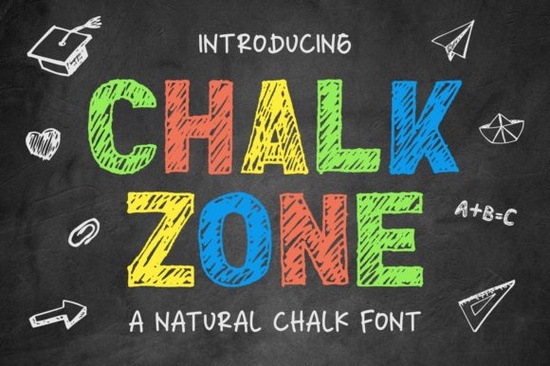
If you’ve been searching for a display font that feels playful but still packs a punch, Chalk Zone Font might be exactly what your next project needs. It’s bold without being overwhelming, colorful in spirit even in black and white, and carries a friendly tone that works just as well on kids’ party invites as it does on boutique shop signage. Whether you’re designing merch, social media graphics, or classroom materials, this font adds personality without demanding too much from your layout.
What makes Chalk Zone especially handy is how naturally it fits into different themes. Need something that feels hand-drawn but still clean? This one’s got you covered. Want to pair it with something more structured? Try using it alongside Monica for contrast the soft curves of Monica balance out Chalk Zone’s energetic bounce. Or if you’re going for something more rugged, Viking Empire brings in that strong, carved-in-stone look while letting Chalk Zone keep things approachable.
Who actually uses fonts like this?
It’s not just for chalkboards though yes, it looks great there too. Print-on-demand sellers love it for t-shirts and tote bags because the thick strokes hold up well at any size. Teachers and homeschoolers use it for worksheets, posters, and reward charts kids respond to its cheerful vibe. Small business owners slap it on packaging, storefront windows, and Instagram stories to stand out without looking corporate. Even crafters working with vinyl cutters or Cricut machines find it reliable: no thin lines to break, no complicated ligatures to mess up.
If you’ve tried fonts like Tiki Bar or Brush King before, you’ll notice Chalk Zone sits somewhere in between less tropical than Tiki Bar, less brushy than Brush King, but just as full of character. That middle ground is where it shines: not too niche, not too plain.
How do I know if it’ll work with my brand or project?
Ask yourself: Is your message meant to feel warm, inviting, or fun? Are you targeting families, students, creative communities, or local markets? If so, Chalk Zone won’t steer you wrong. It’s also surprisingly legible for a display font even at smaller sizes which means you can use it beyond headlines. Think product tags, event banners, or even short quotes inside greeting cards.
One thing to note: while it’s versatile, it’s not invisible. This isn’t a font you tuck into body text or use for legal disclaimers. Save it for moments when you want to grab attention the title of your summer camp flyer, the name on your handmade soap label, the “Sale!” banner above your Etsy shop.
Any tips for pairing it with other fonts?
- Keep it simple. Pair Chalk Zone with a clean sans-serif like Helvetica or Montserrat. Let the display font do the talking.
- Use hierarchy. Make Chalk Zone your headline, then switch to something neutral for subheadings or body copy.
- Color matters. Even in grayscale, this font pops but throw in a bright accent color (like coral or mustard) and it sings.
- Don’t overdo effects. Drop shadows or heavy outlines can muddy its charm. A subtle stroke or light texture often works better.
If you’re already using Chalk Zone in your toolkit, consider mixing it with handwritten or script fonts for contrast just avoid anything too delicate. The goal is balance, not competition.